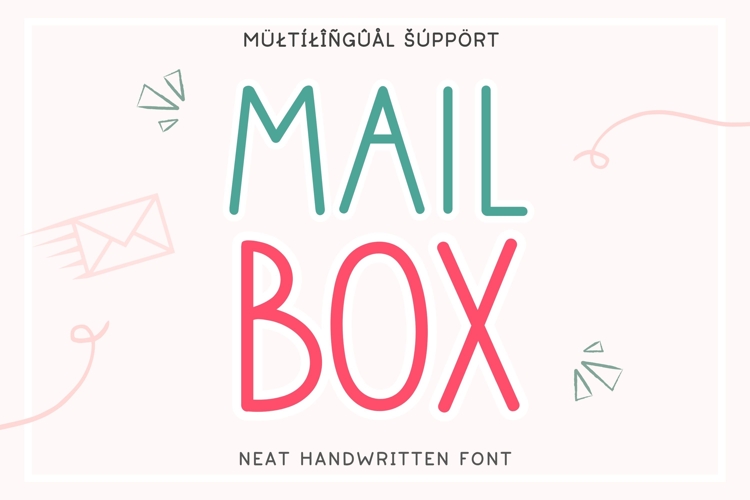
Mailbox is a neat and clean handwritten font with a natural, casual writing style. Its thin and friendly letterforms are easy to read, making it a versatile choice for both short titles and longer text.
This handwriting font is perfect for journals, planners, notes, greeting cards, invitations, quotes, social media graphics, branding, educational projects, and other creative designs.
Mailbox includes uppercase and lowercase letters, numerals, punctuation, and multilingual characters, giving you plenty of flexibility for a wide range of projects.